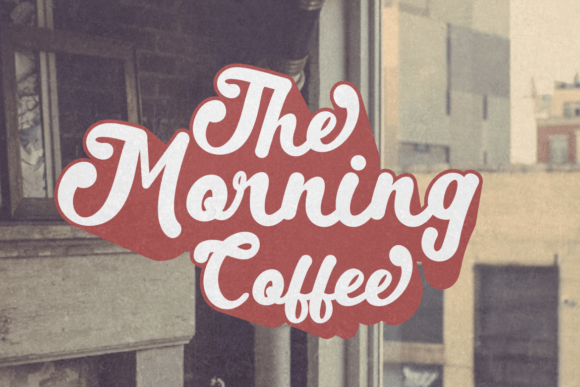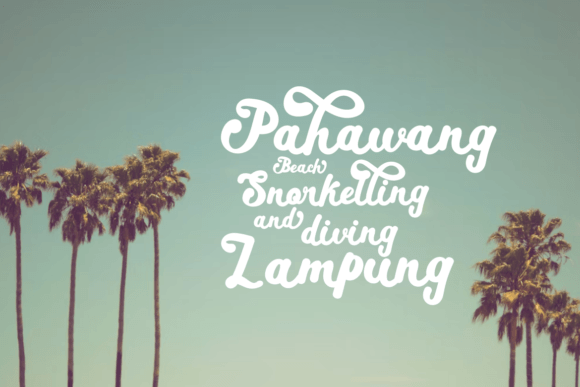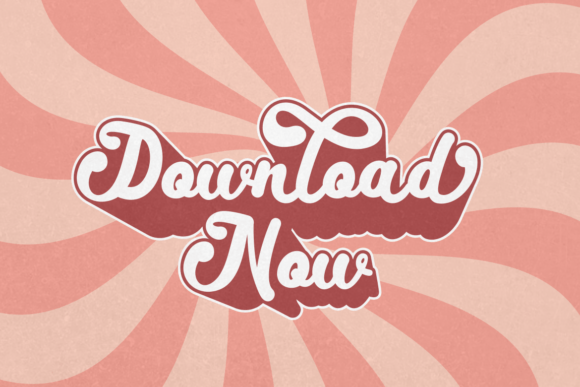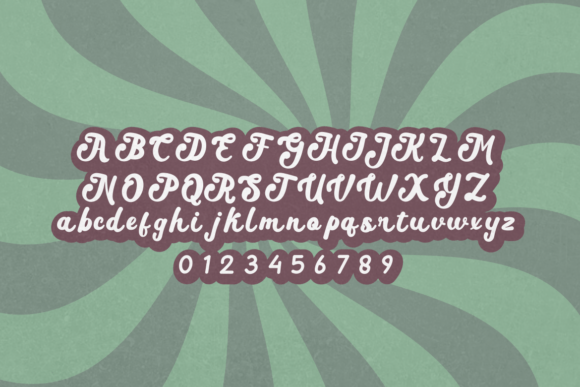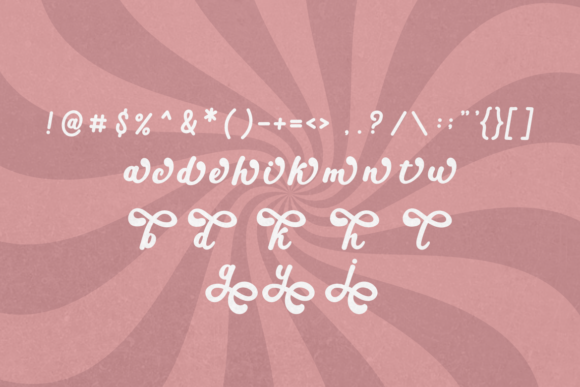
Introduction to Hello Nigtea Font
Have you ever found yourself scrolling through a design inspiration board, feeling a sudden rush of creativity as you stumble upon a project that perfectly captures the essence of a bygone era? For me, it was a vintage advertisement with a distressed, hand-drawn font that transported me back in time. The nostalgic feel of it sparked an idea for a modern project, and that’s when I discovered the Hello Nigtea Font.
This modern retro font is a treasure trove of creative possibilities, offering a unique blend of classic lettering styles with a trendy twist. Its bold lines and curves give it a contemporary feel, while maintaining the vintage charm that makes it a standout design resource. Whether you’re working on a high-quality project with a transparent background or a creative project that requires a touch of nostalgia, the Hello Nigtea Font is sure to be a valuable addition to your design arsenal.
What sets this font apart is its PUA encoding, making it easy to access all the delightful glyphs and swashes that come with it. And the best part? It’s available for free download, making it a must-have for any designer looking to add a touch of sophistication to their projects.
Key Features of Hello Nigtea Font
- High-quality, unique design ideal for creative projects requiring a distinctive aesthetic.
- Transparent background option allows for seamless integration with any design or background.
- Designed as a versatile design resource, perfect for headings, titles, and other text elements in creative projects.
Honest Review: Hello Nigtea Font
As a designer, I’m always on the lookout for unique and high-quality fonts to elevate my creative projects. I recently came across the Hello Nigtea Font, and I must say, it’s a great addition to any design resource library.
What works well: ✨ The Hello Nigtea Font has a beautiful, cursive script that’s perfect for adding a touch of elegance to any design. The font is highly legible, even at smaller sizes, making it ideal for body text or headings. The transparent background is also a great feature, allowing for seamless integration with any design.
- Unique and elegant script
- Legible at various font sizes
The Hello Nigtea Font is perfect for creating a variety of designs, including logos, social media graphics, and marketing materials. It’s also great for adding a touch of personality to your design and making it stand out from the crowd.